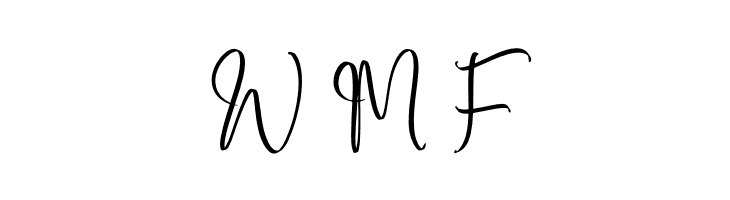
A flowing, cursive font with elegant loops and a handwritten appearance.
A lively, handwritten font with flowing cursive letterforms.
An elegant script font with high contrast and flowing cursive style.